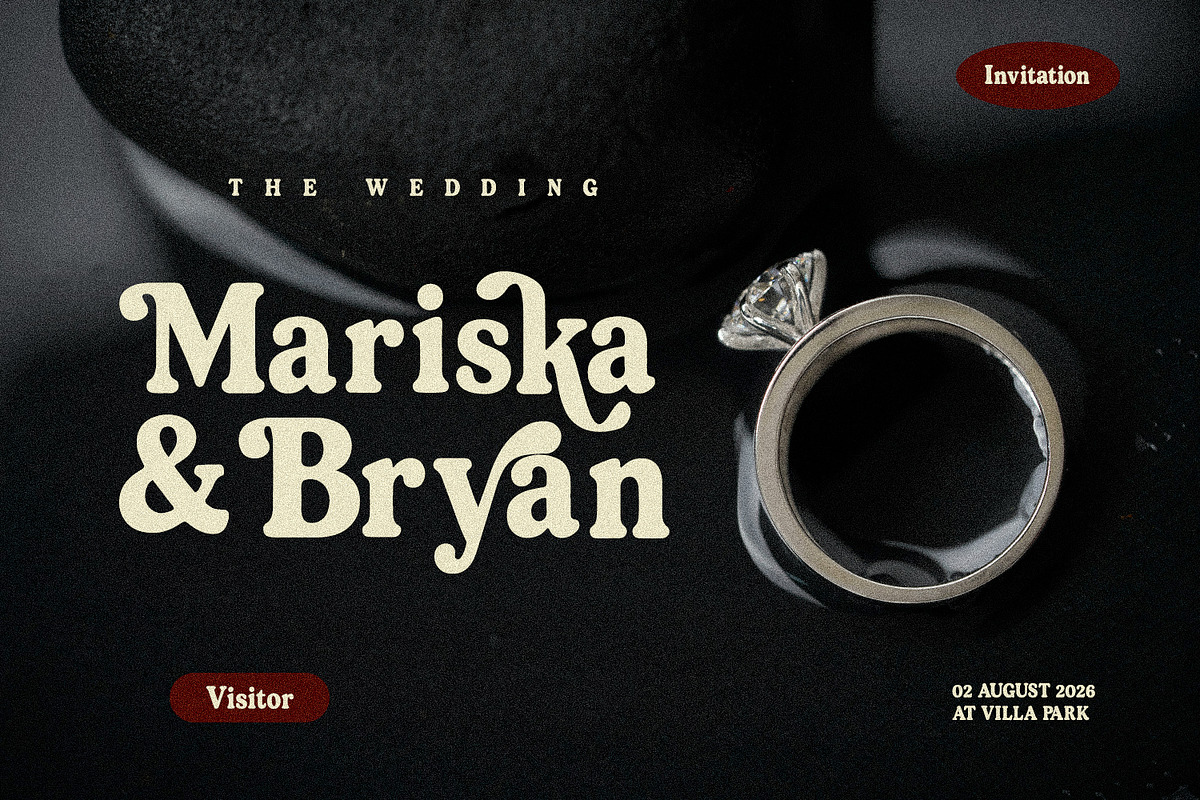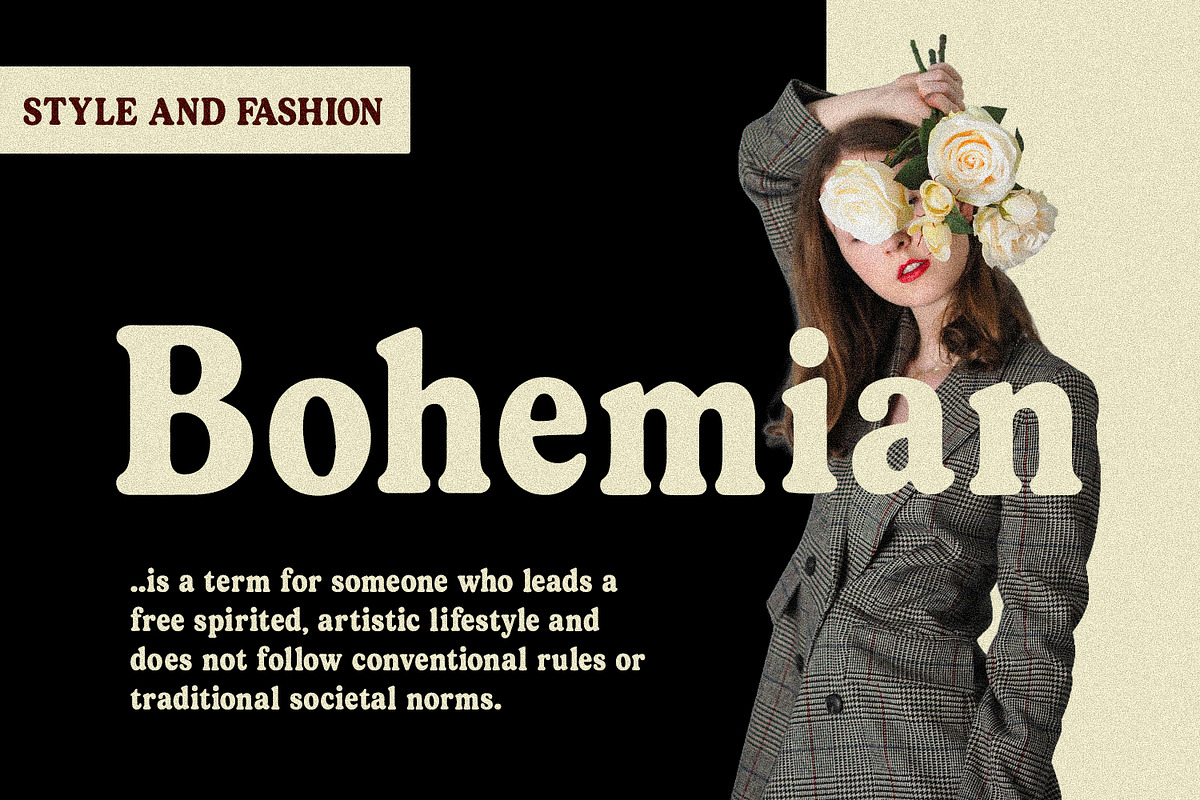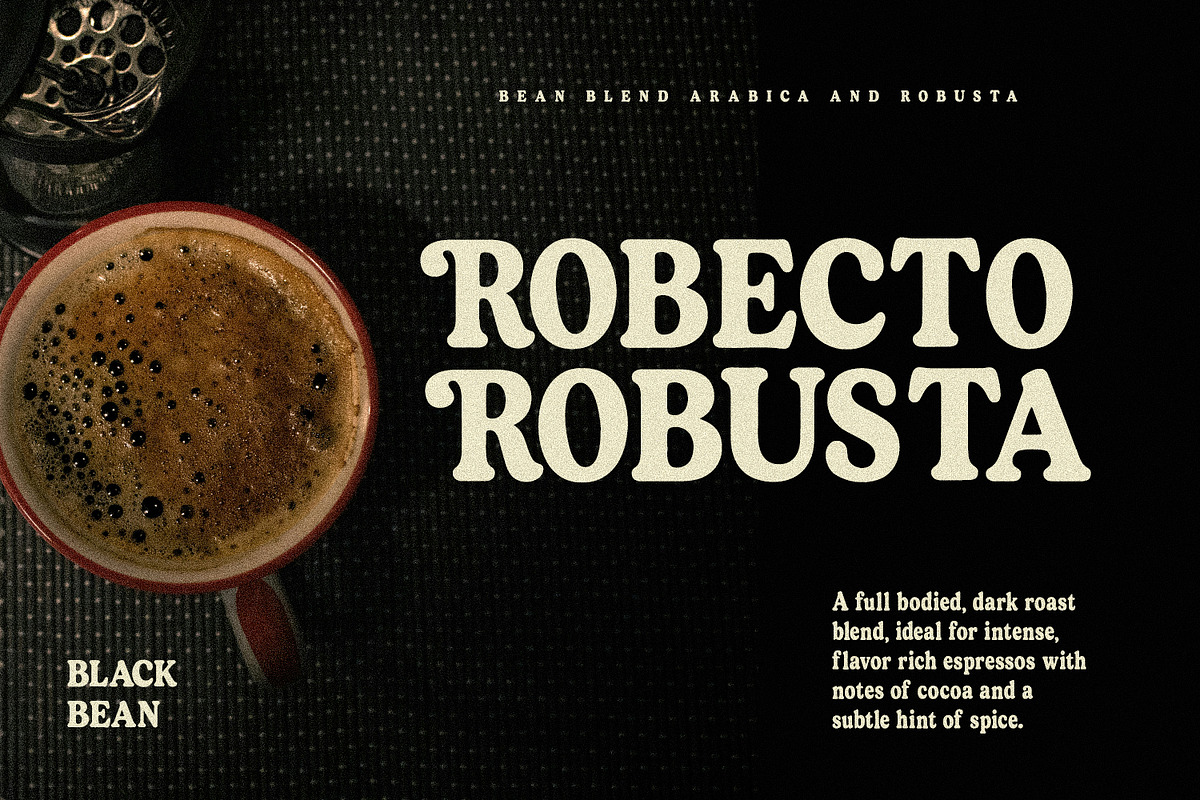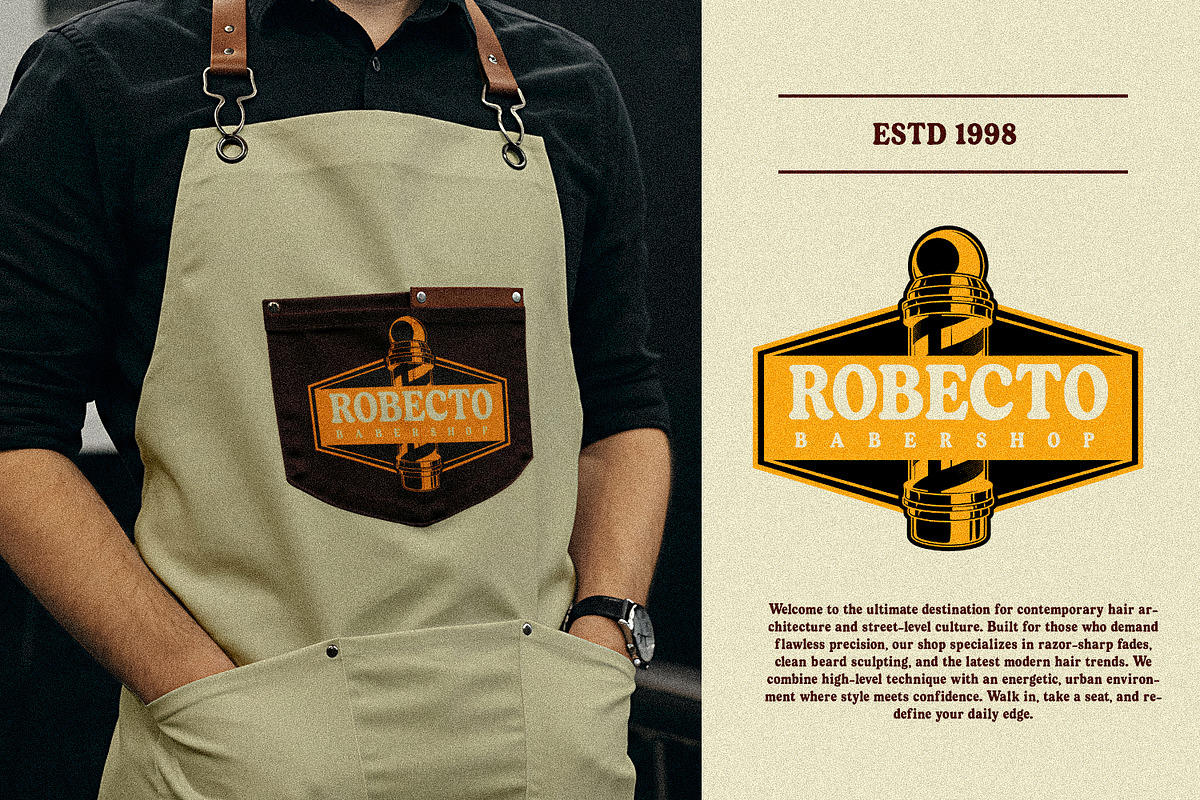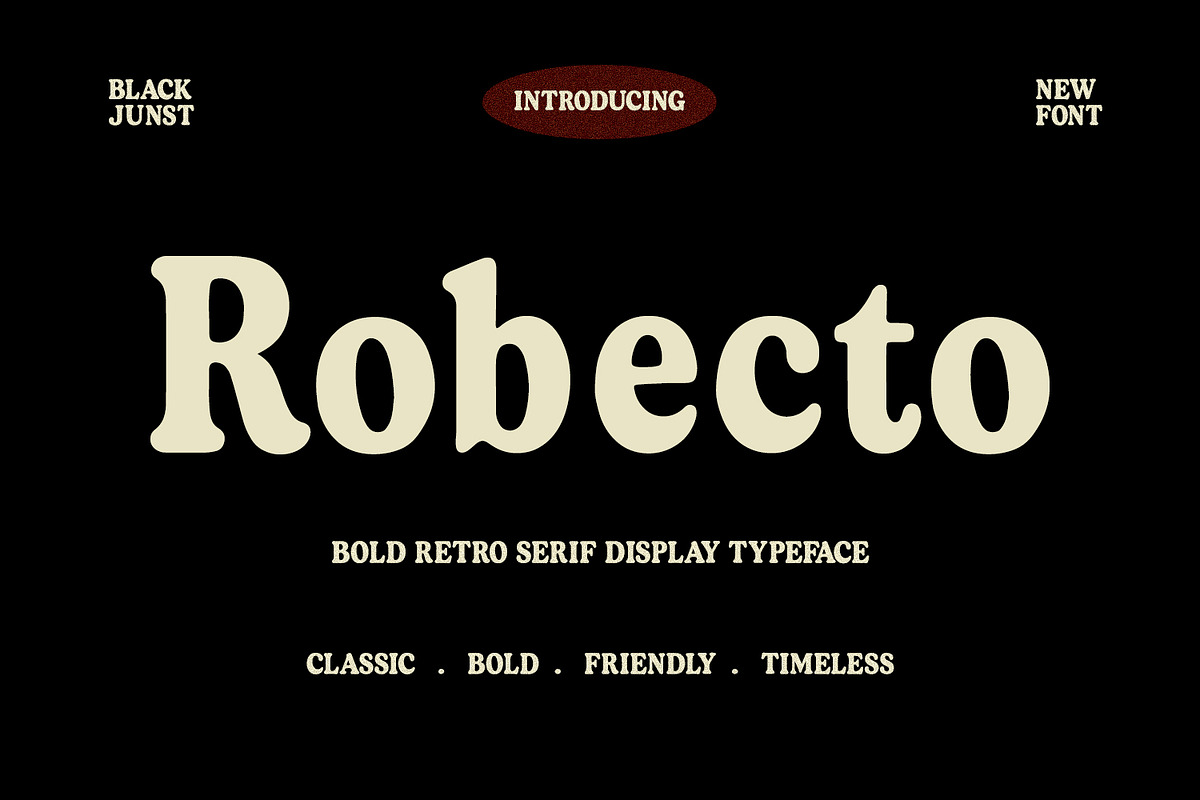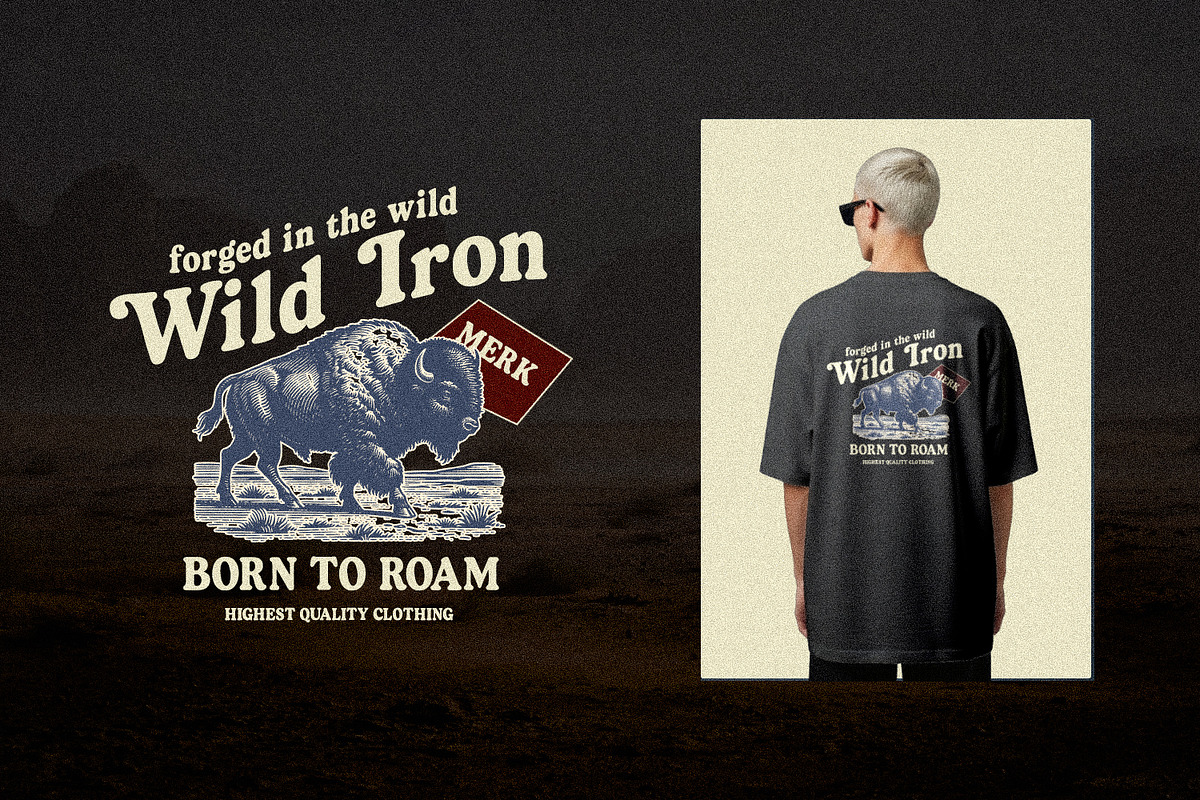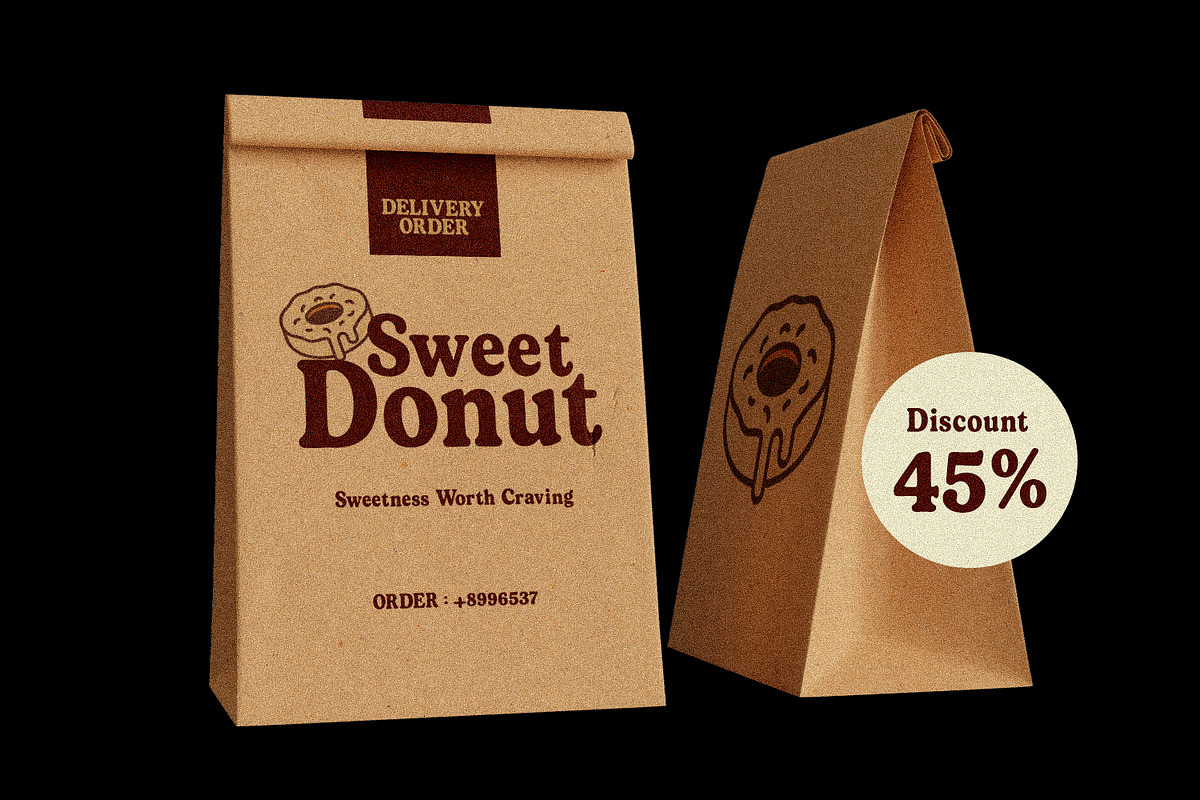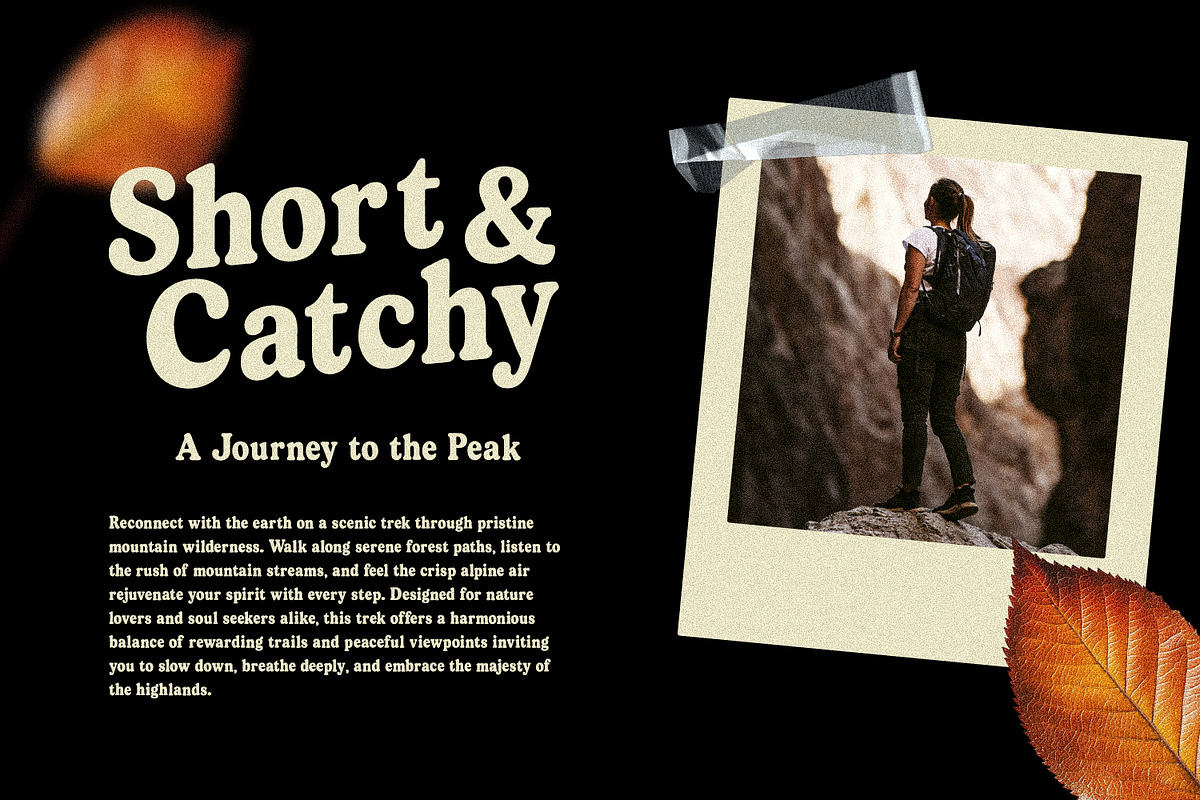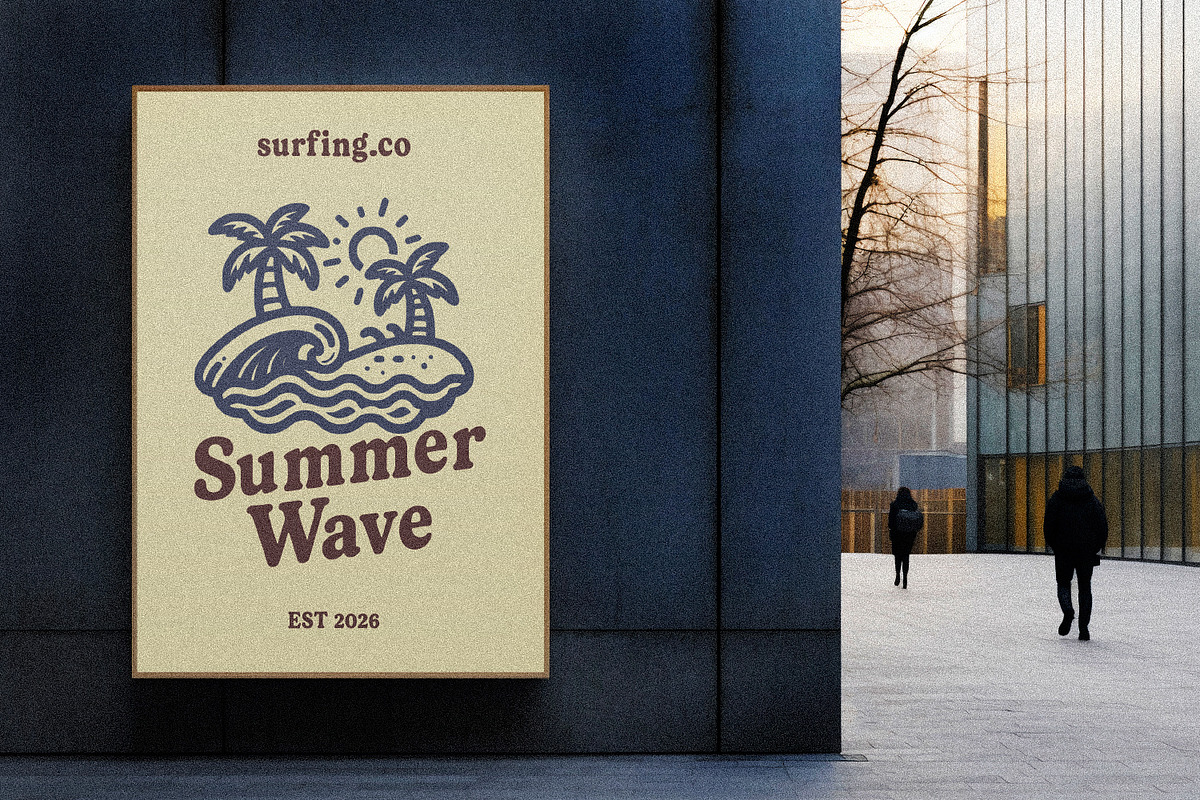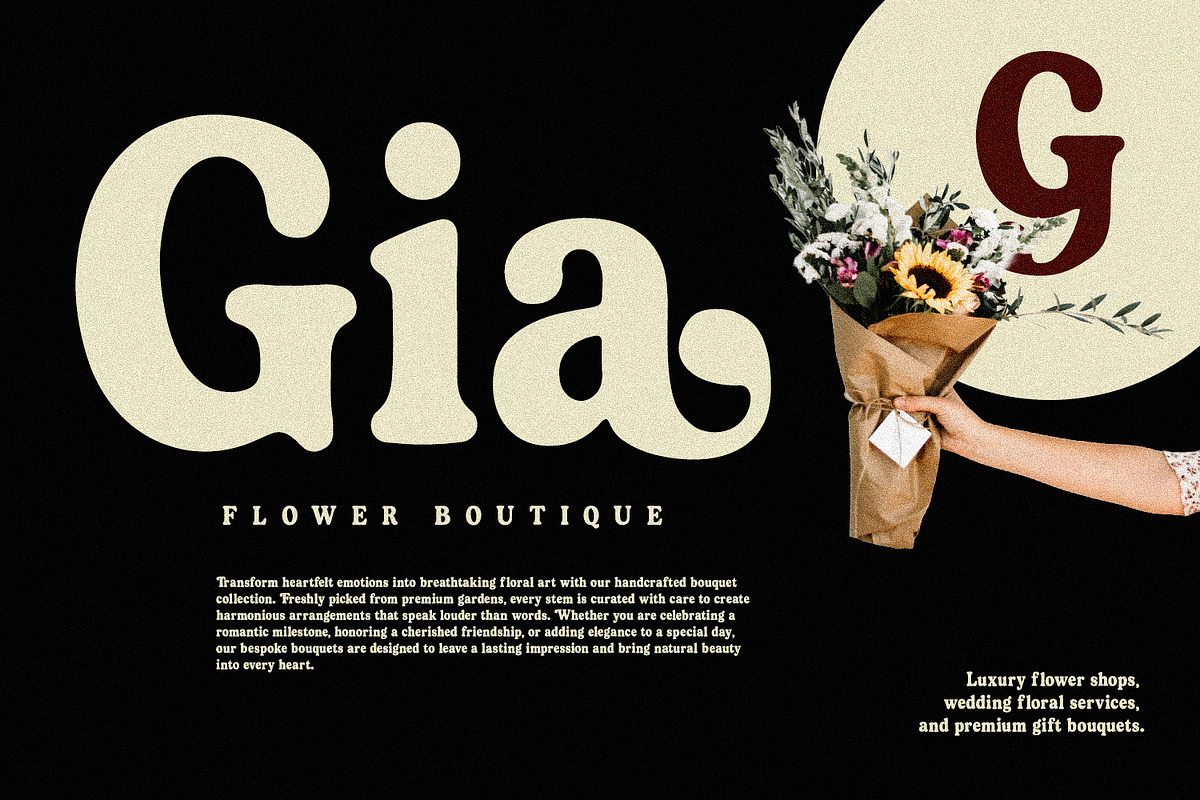
Robecto – Bold Retro Serif
Robecto – Bold Retro Serif is a chunky and expressive retro display typeface designed to bring bold vintage personality to your designs. With its soft curves, heavy letterforms, and distinctive serif details, Robecto combines classic typography with a playful modern attitude.
Inspired by retro typography, vintage lettering, groovy aesthetics, and bold display design, Robecto is made to stand out in large-scale applications. Its friendly yet powerful character makes it a versatile choice for branding, logos, posters, packaging, apparel, editorial designs, social media graphics, and eye-catching headlines.
Whether you're creating a retro fashion brand, vintage logo, streetwear graphic, food packaging, poster, merchandise, or nostalgic campaign, Robecto adds an instantly recognizable personality to your typography.
Retro & vintage branding
Logo design
Fashion & apparel
Streetwear graphics
Posters & headlines
Packaging design
Food & beverage branding
Editorial design
T-shirt & merchandise
Labels & badges
Advertising & promotional designs
Robecto is a bold retro serif display font for designers who want classic character with a fun, friendly, and timeless feel.